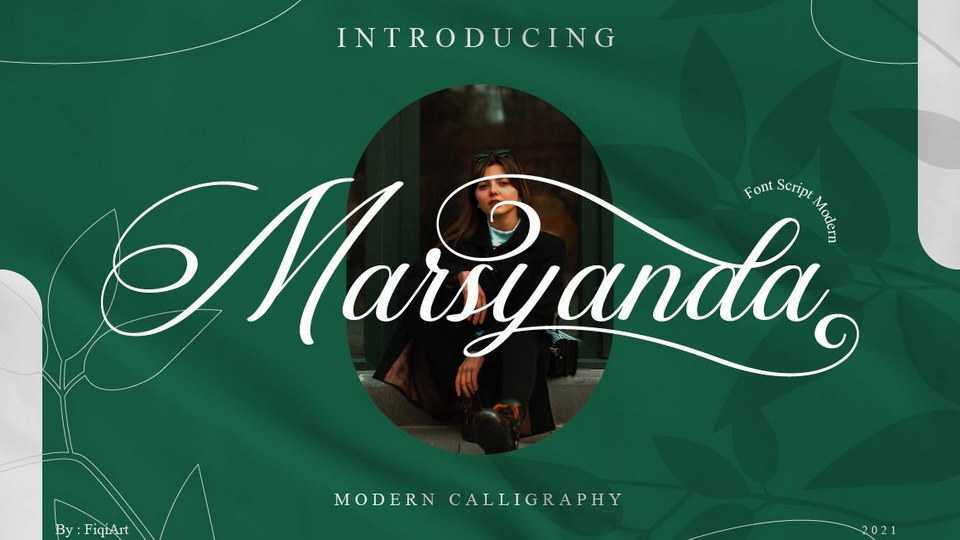
Download Marsyanda font, a romantic and sweet calligraphy typeface. Marsyanda will add a luxury spark to any design project that you wish to create.
Designer: Fiqi Febriyanto